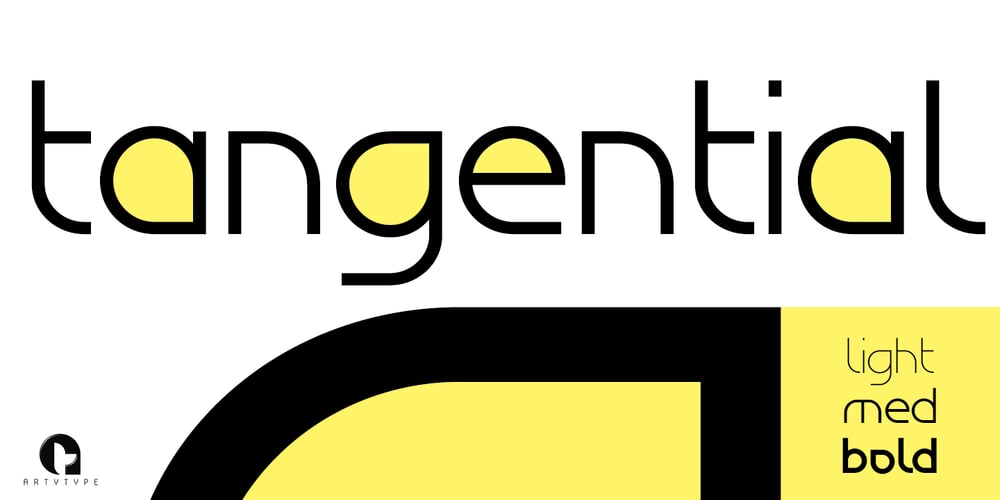
Tangential Font Family was designed by James Marsh and published by ArtyType. Tangential contains 6 styles and family package options. Tangential is a distinctive modern sans in 3 weights which was born out of a simple idea: Beginning the project with a perfect circle to form the letter ‘o’, then squaring off one corner, ending up with a letterform I hadn’t seen before for that character; this for me was enough motivation to attempt a full alphabet incorporating the angled styling wherever possible. The Tangential style I envisaged for the family is complemented by the prominent use of negative space throughout, most apparent on the drop shaped ‘o’ which is a key feature of the typeface and a letterform I’m particularly pleased with. The core Tangential design is also accompanied by two further variations, Rounded & SemiSerif.